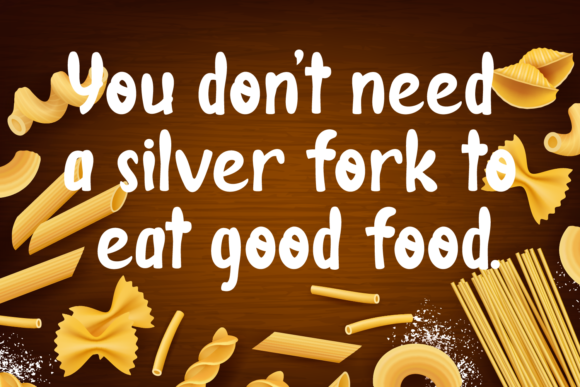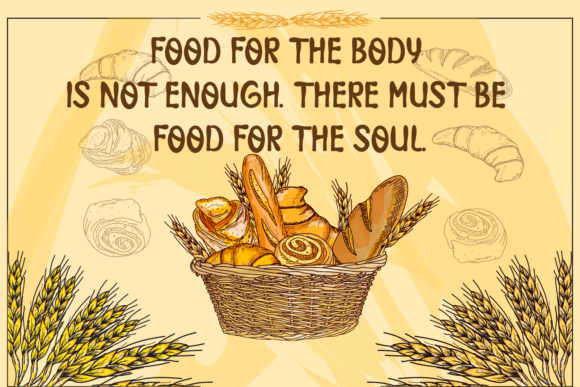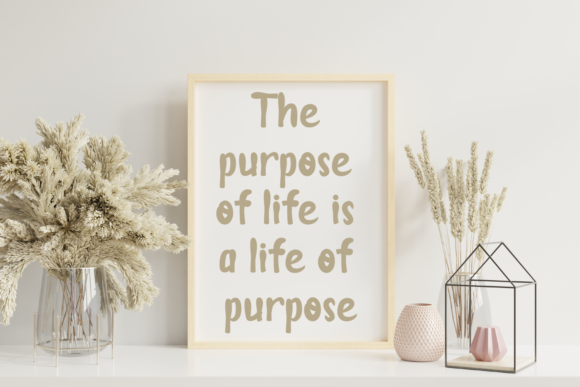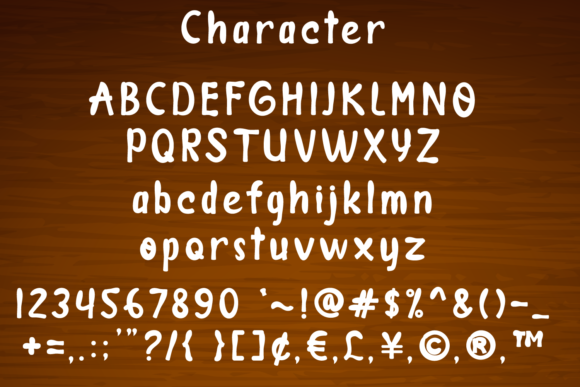
New Homemade Font – Free Download
Introduction to New Homemade Font
New Homemade is a cute and colorful display font.
It embodies playfulness and authenticity and is the perfect choice for any children activity or school project .
Key Features of New Homemade Font